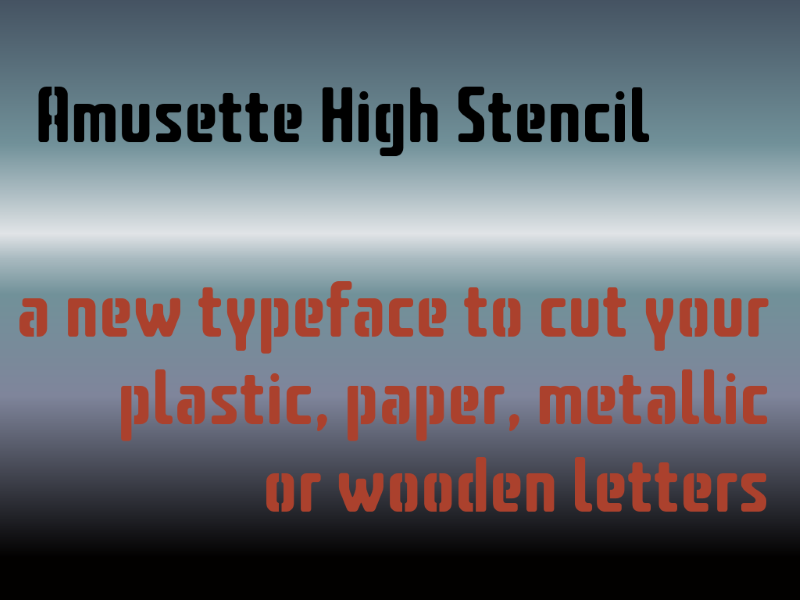
Font name: | Amusette High Stencil |
Author: | Yves Michel |
Note by Yves Michel | |
A stencil font based on my Amusette font. Fonte stencil (d�coupage de lettres) bas�ze sur ma fonte Amusette. |